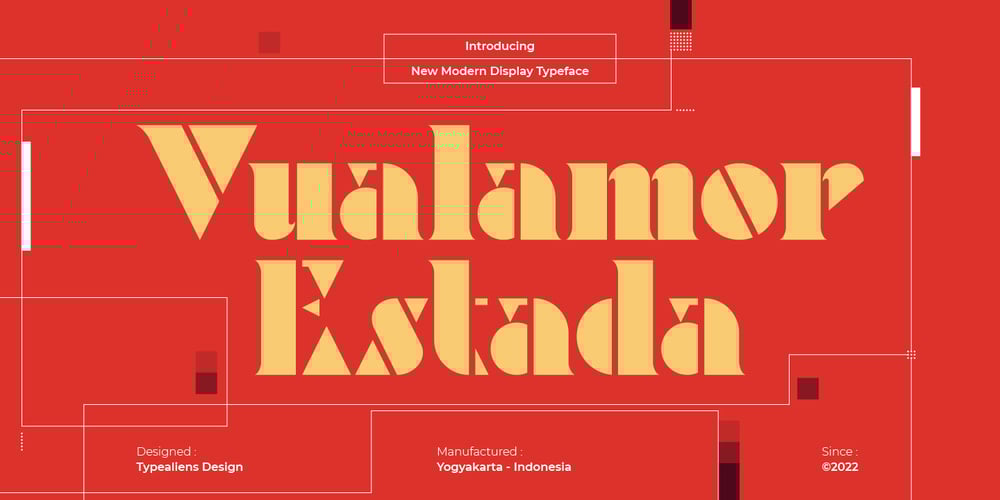
Vualamor Estada Font Family was designed by Ilham Wahyu and published by Ilhamtaro. Vualamor Estada contains 1 styles and family package options. VUALAMOR ESTADA is a unique display font, it can be used for vintage or modern style designs. With stencil and bold style.To enable the OpenType Stylistic alternates, you need a program that supports OpenType features such as Adobe Illustrator CS, Adobe Indesign & CorelDraw X6-X7.Cheers!